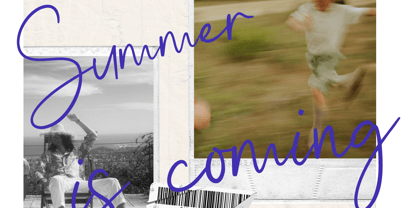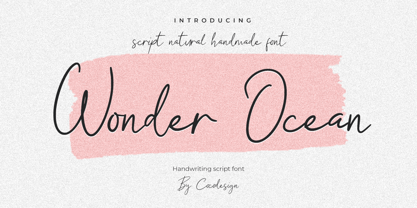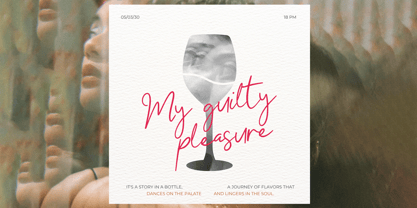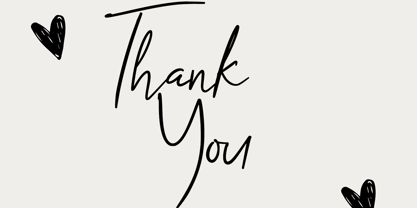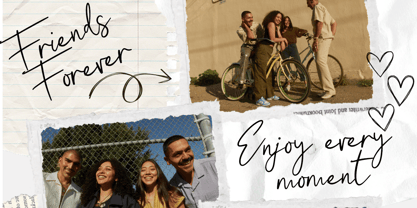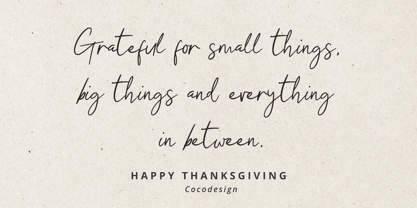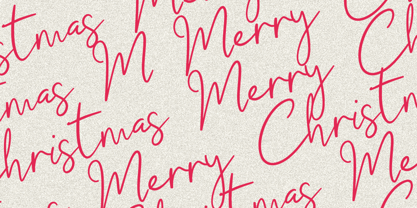
Wonder Ocean
by Cocodesign
The Wonder Ocean Font Family was designed by Muhammad Zaini and published by Cocodesign. Wonder Ocean contains 1 styles. More about this family
Unearth the captivating charm of Wonder Ocean, a mesmerizing font that flawlessly reflects the familiar comfort of daily penmanship while radiating a superior style of elegance. Its organic, spontaneous strokes lend a versatile adaptability across various creative canvases. Embodying simplicity wrapped in striking elegance, Wonder Ocean transcends traditional typography, evolving into an extraordinary realm of artistic expression.
Designers: Muhammad Zaini
Foundry: Cocodesign